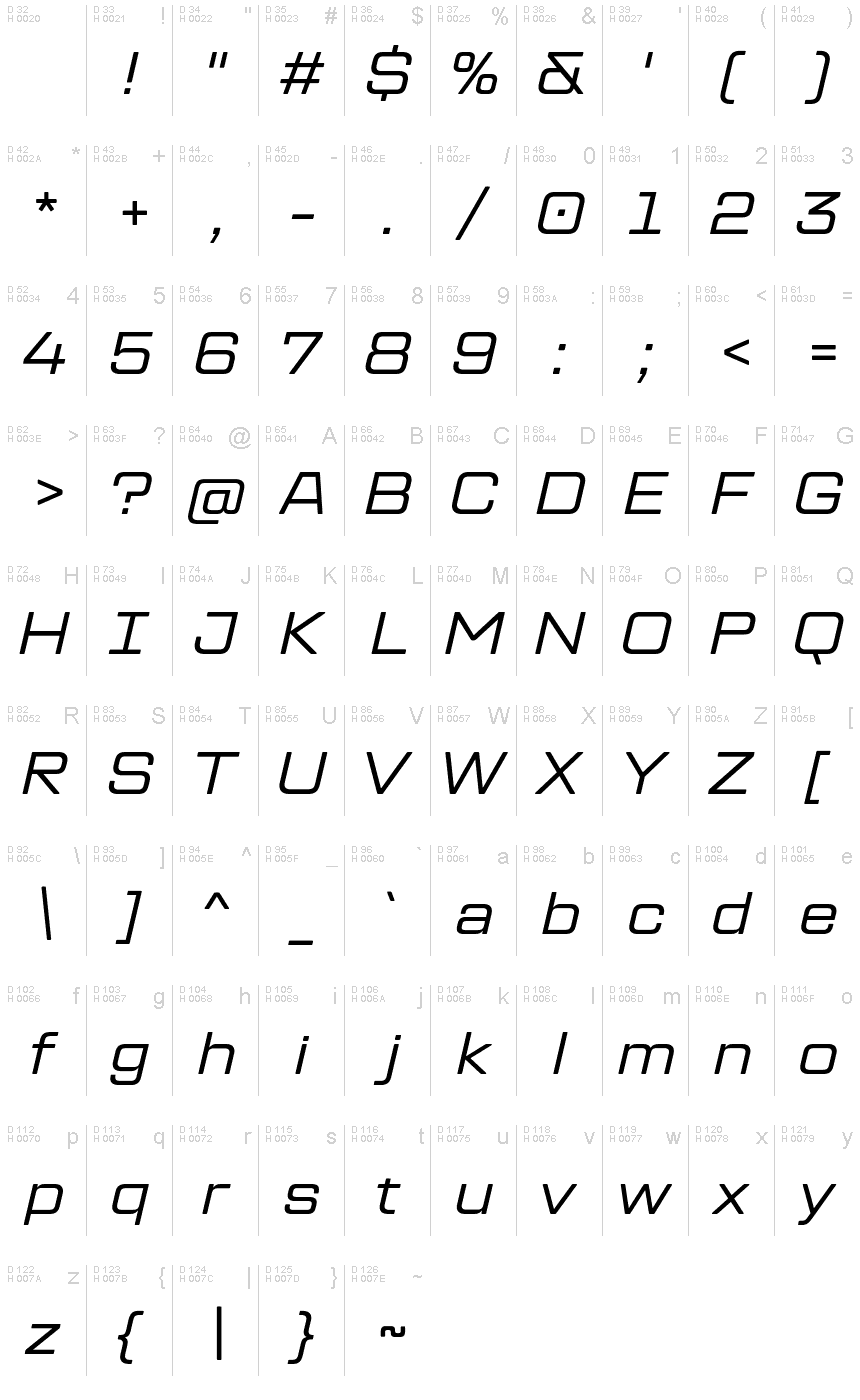
TT Lakes Neue Trl Ext It
TT Lakes Neue Ext It is a contemporary sans serif font that's perfect for modern designs. Its semi-light weight adds a touch of elegance, while its expanded width provides ample space for creative designs. Created by the TypeType Foundry, this font is versatile and works well for both digital and print projects. Whether you're designing a website, branding materials, or editorial layouts, TT Lakes Neue Ext It is sure to make an impact. Its sleek style and clean lines make it suitable for a range of projects – from tech startups to fashion brands. Get creative with TT Lakes Neue Ext It!